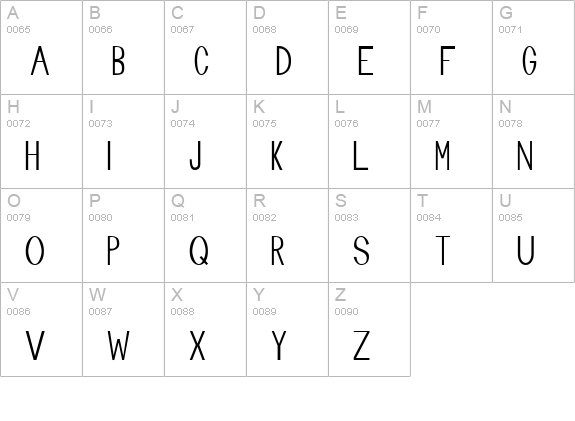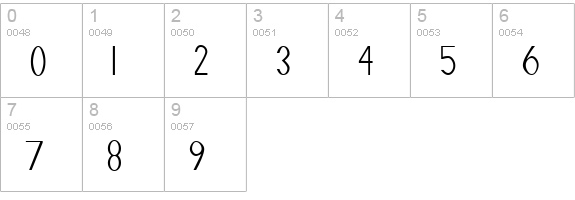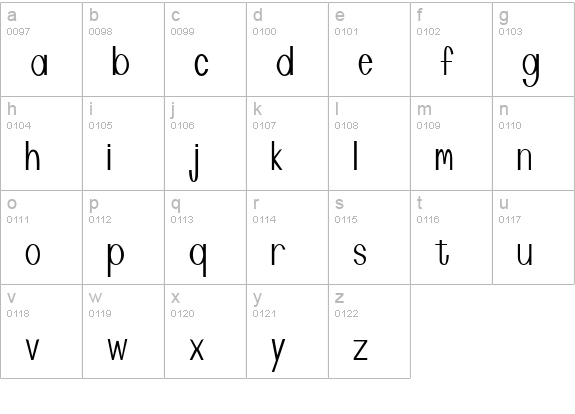
Manta Font Details
Introducing Manta font, a stunning typeface that seamlessly combines modern elegance with timeless appeal. With its graceful curves and sharp lines, Manta font exudes sophistication and versatility, making it the perfect choice for a wide range of design projects. Featuring a sleek and contemporary design, Manta font is sure to captivate and inspire. Its unique letterforms are meticulously crafted to create a harmonious balance between readability and artistic flair. Whether used for headlines, logos, posters, or any other creative endeavor, Manta font will effortlessly elevate your designs to new heights. But what sets Manta font apart is not just its impeccable aesthetics, but also its accessibility. This remarkable typeface is available for free download at FontsMarket.com, allowing designers and typographers alike to unleash their creativity without any barriers. Embracing the spirit of inclusivity and innovation, Manta font empowers creators to freely experiment and express their unique visions. With a wide range of weights and styles to choose from, Manta font offers endless possibilities for customization. Whether you prefer a bold and impactful statement or a subtle and refined touch, this versatile typeface has got you covered. Its seamless compatibility with various design software ensures a seamless integration into your workflow, making Manta font a reliable companion for all your creative endeavors. Unlock the potential of your designs with Manta font. Download it for free at FontsMarket.com and experience the freedom to create captivating typography that leaves a lasting impression.